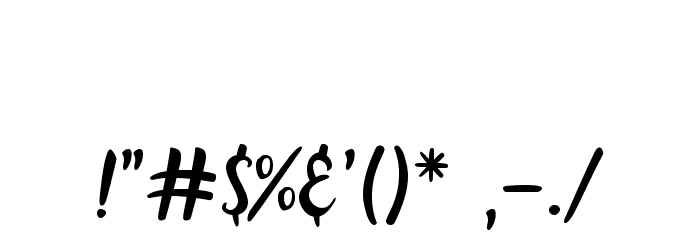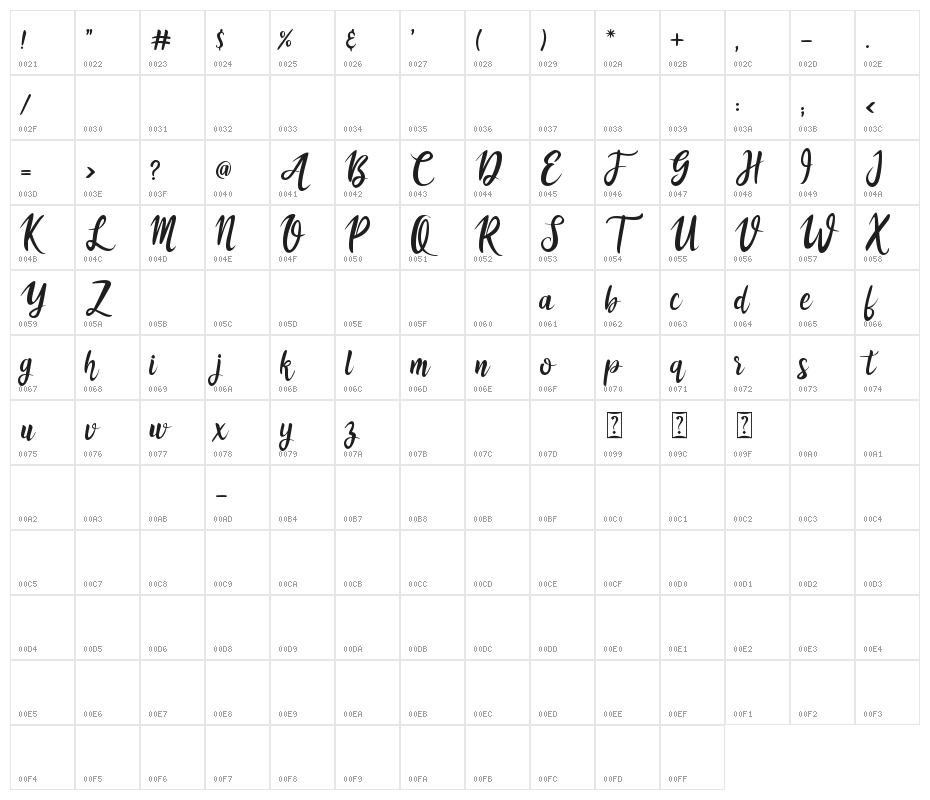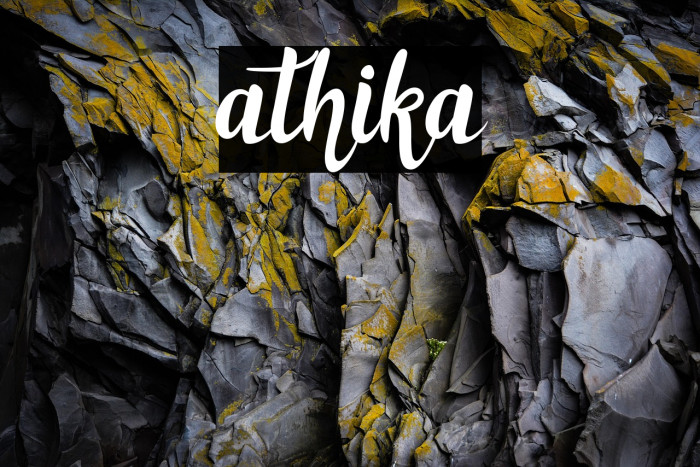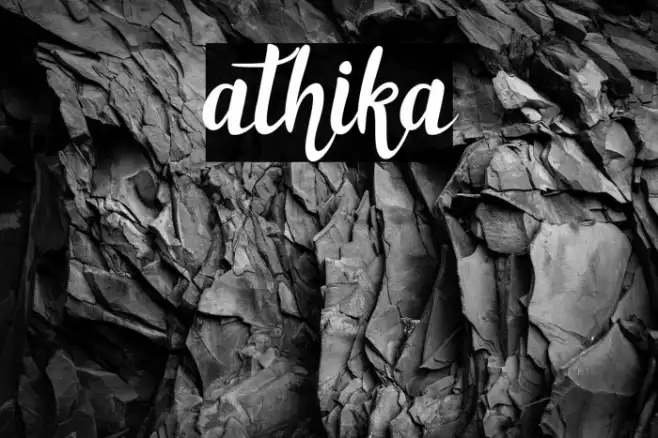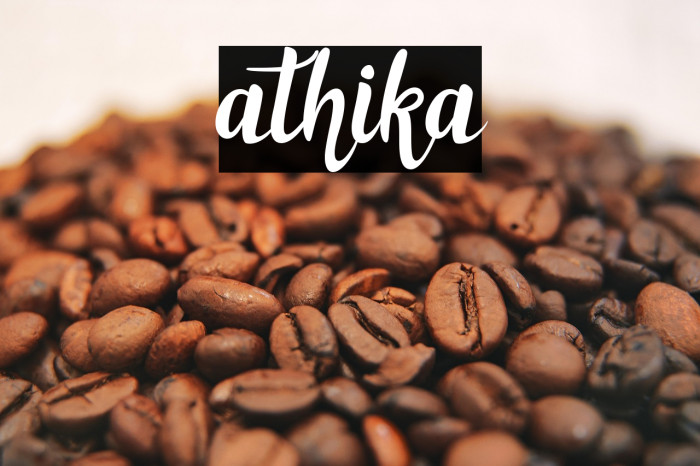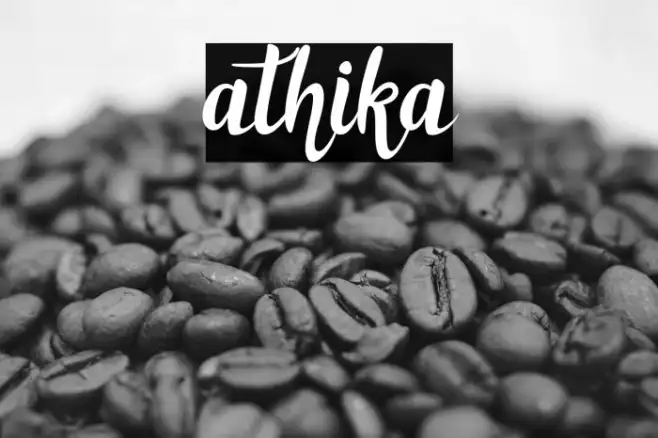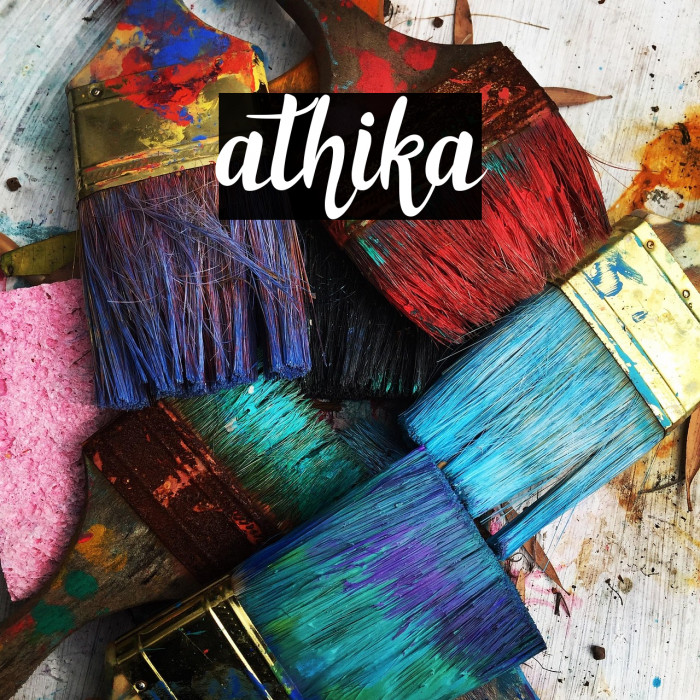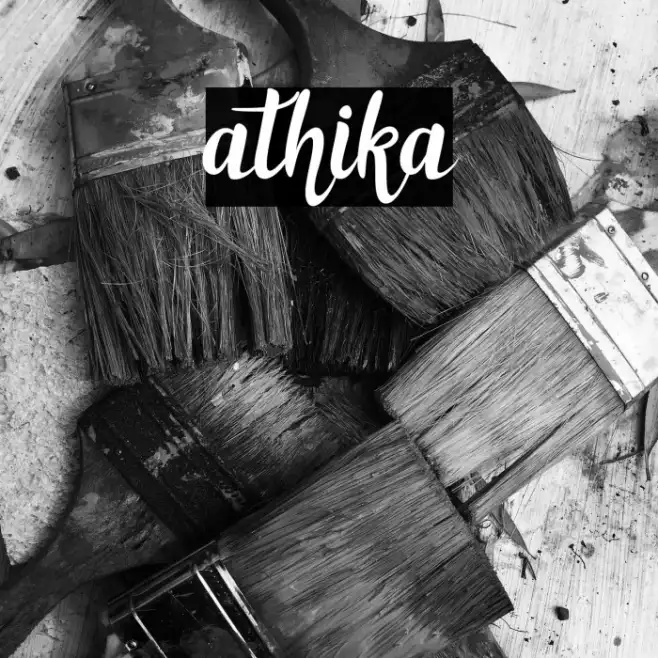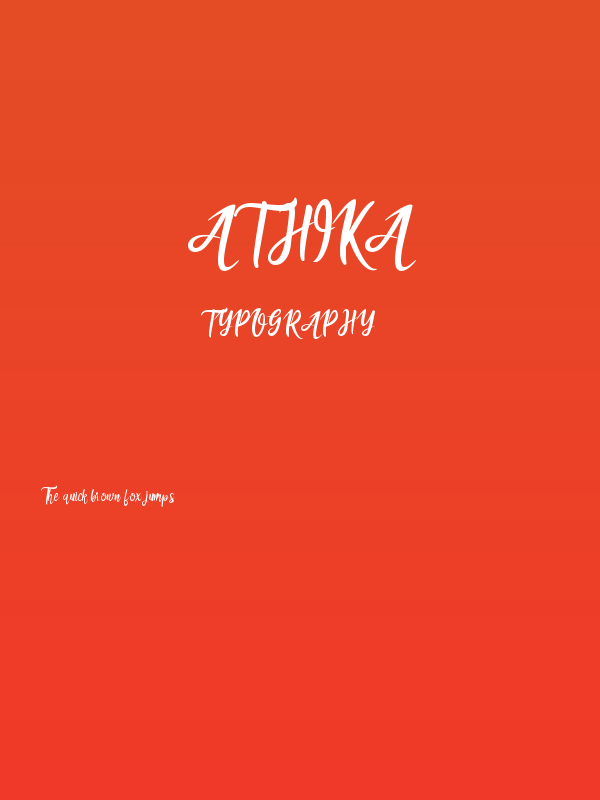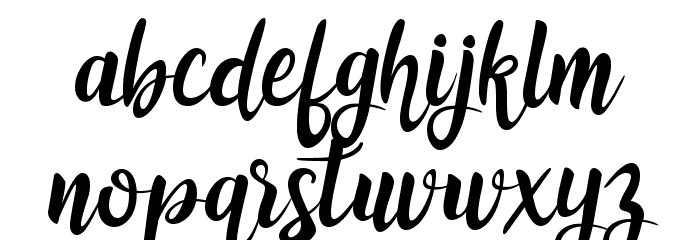
athika Font
athika Description
This font features a dynamic and flowing script style, characterized by its elegant and cursive letterforms. The uppercase letters exhibit a graceful and sweeping motion, while the lowercase letters maintain a consistent rhythm with smooth connections. The font's design is both stylish and legible, making it suitable for a variety of creative applications. The characters are well-balanced with a slight slant, adding to the overall fluidity and charm. Special characters are integrated seamlessly, enhancing the font's versatility.